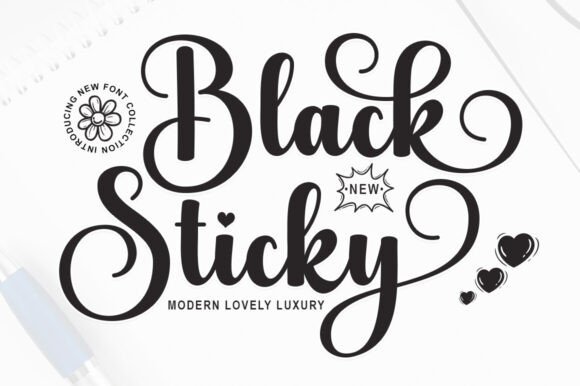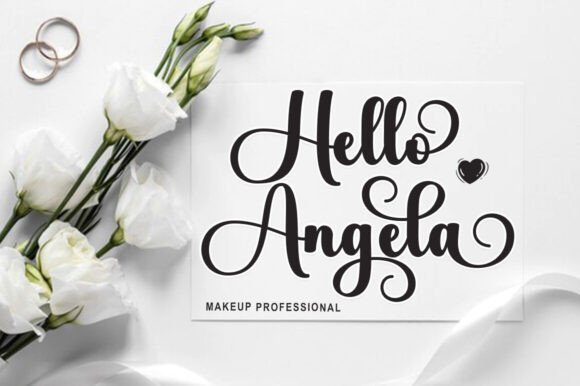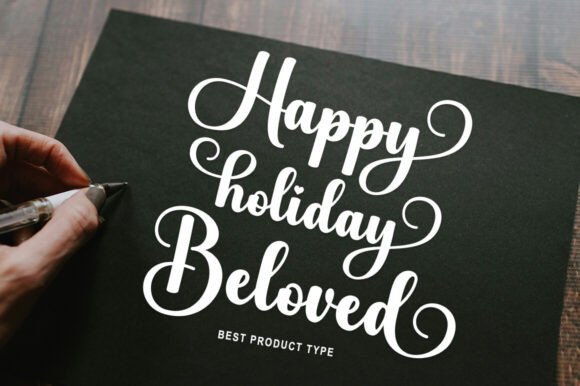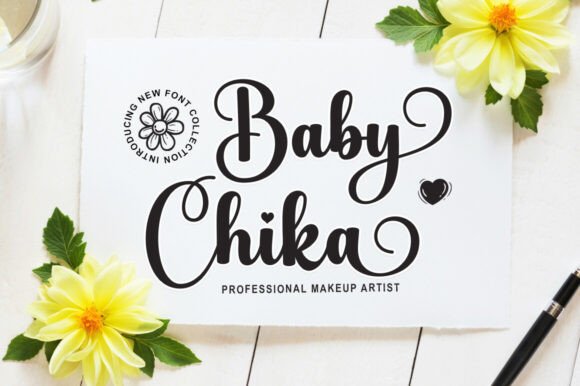
Black Sticky Font: Elegant Calligraphy Script for Wedding Designs
About the Black Sticky Font
Elevate your designs with Black Sticky Font, a font that combines sophistication with readability. Imbued with a blend of charm and elegance, Black Sticky is a striking script font that stands as a modish tribute to the timeless art of classic calligraphy. The font’s unique style accentuates any design project, uplifting branding efforts, alluring titles, romantic wedding designs, sophisticated invitations, captivating signs, professional logos, and tasteful labels to a new sphere of design excellence. Let the magic of Black Sticky script font transform your design vision into a visual masterpiece.
Black Sticky Font Usage Examples
Black Sticky Font Example